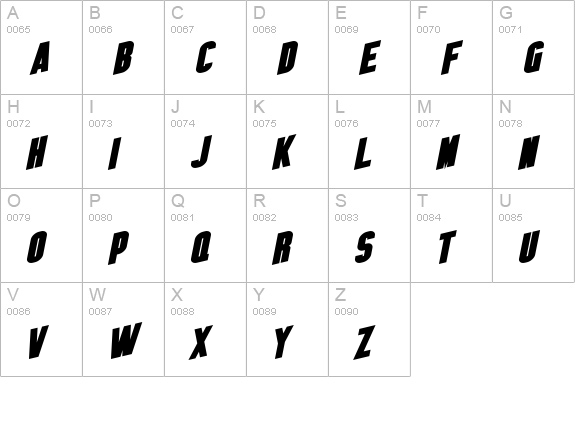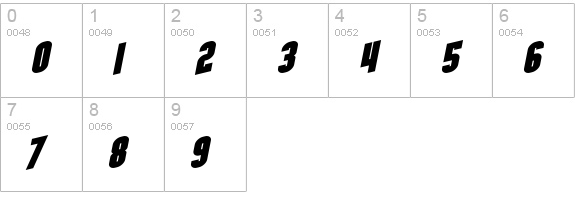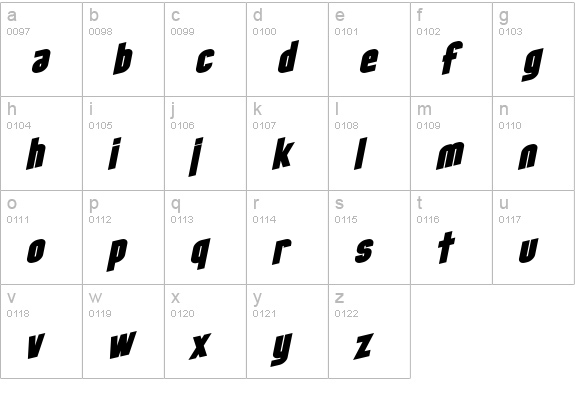
SF Obliquities Bold Font Details
SF Obliquities Bold is a strong, high-contrast variant in the SF typeface family \xE2\x80\x94 well suited to headlines, attention-grabbing titles, and strong calls-to-action.
SF Obliquities Bold is a captivating and versatile typeface that effortlessly combines elegance with a touch of modernity. Its bold and slanted design exudes confidence and sophistication, making it the perfect choice for a wide range of creative projects. Whether you're designing a striking logo, a captivating poster, or a sleek website, this font will undoubtedly make a bold statement. The sleek and stylish curves of SF Obliquities Bold are carefully crafted to catch the eye and effortlessly draw attention to your message. Its clean lines and unique slant add a touch of dynamism and energy to any design, making it a truly versatile font that can adapt to various styles and themes. One of the best aspects of SF Obliquities Bold is that it is available for free download at FontsMarket.com. This means that you can easily access and use this exceptional font without having to worry about any additional costs. The fact that it is freely available makes it an ideal choice for both professional designers and enthusiasts who are looking to add a touch of distinction to their projects. With SF Obliquities Bold, you have the freedom to explore your creativity and let your design ideas flourish. Its bold and captivating presence will make your creations stand out and leave a lasting impression on your audience. Whether you're working on a branding project, a magazine layout, or a digital advertisement, this font will elevate your designs to new heights. Embrace the elegance and versatility of SF Obliquities Bold, and let your imagination run wild. Download this font for free at FontsMarket.com and unlock a world of design possibilities.